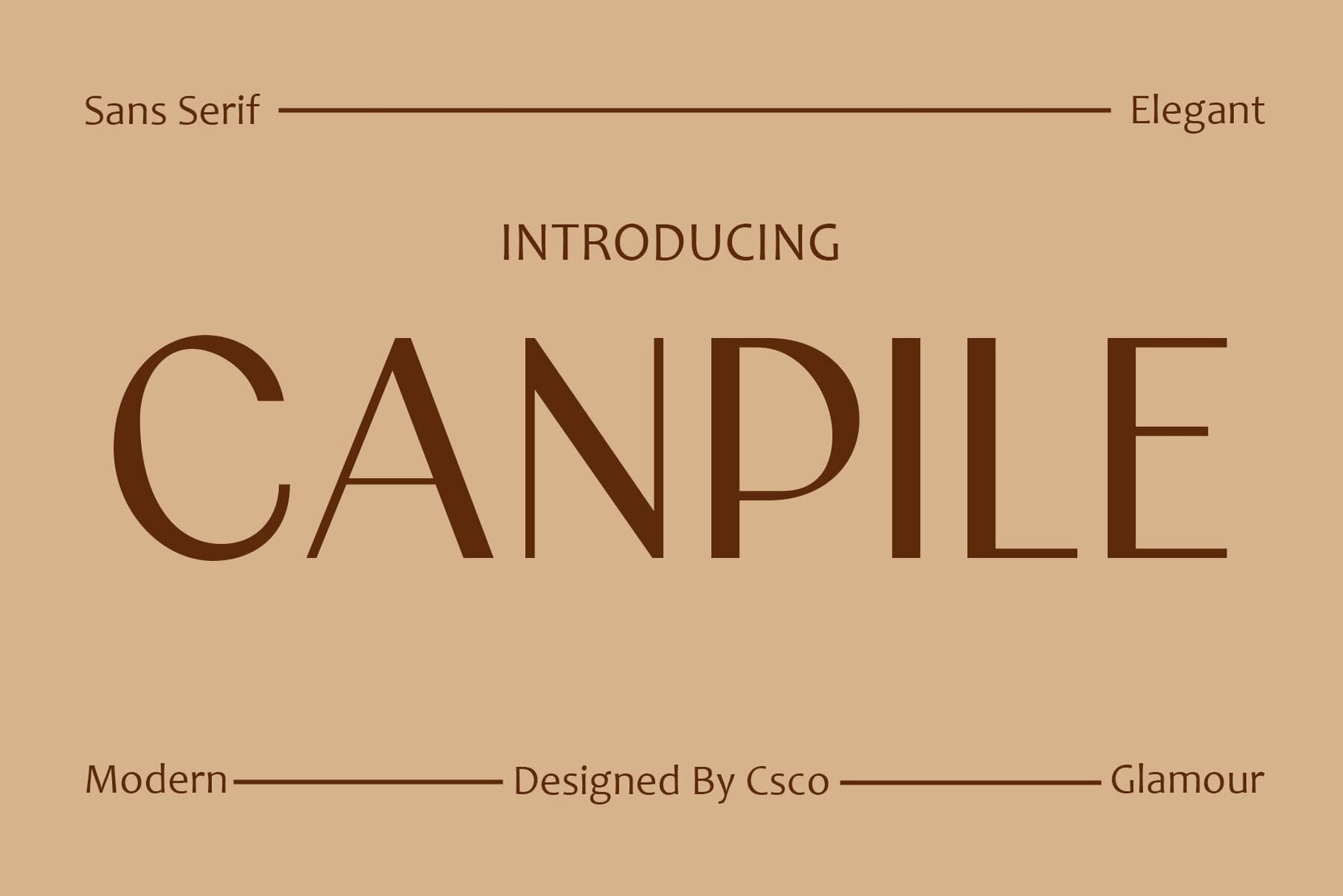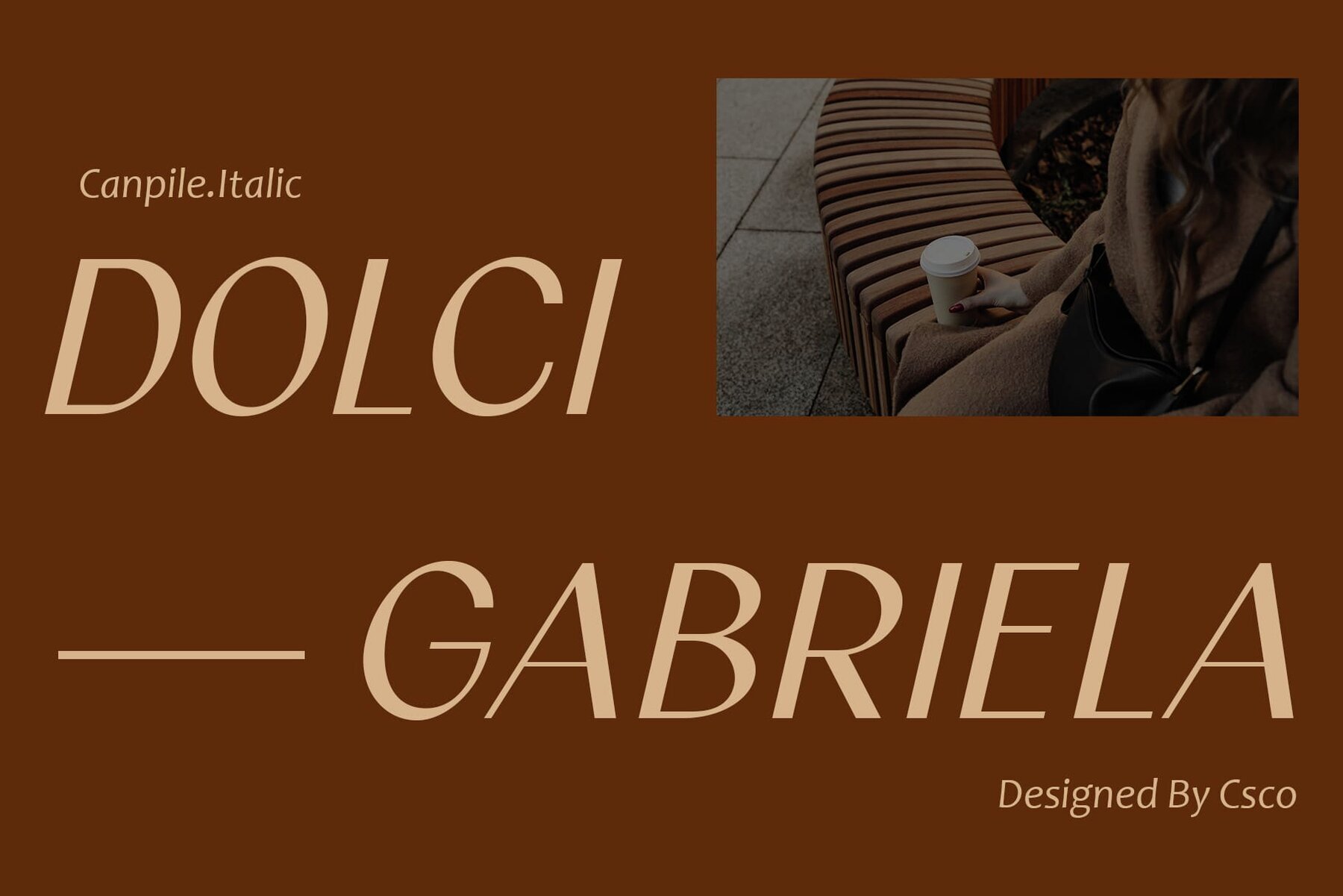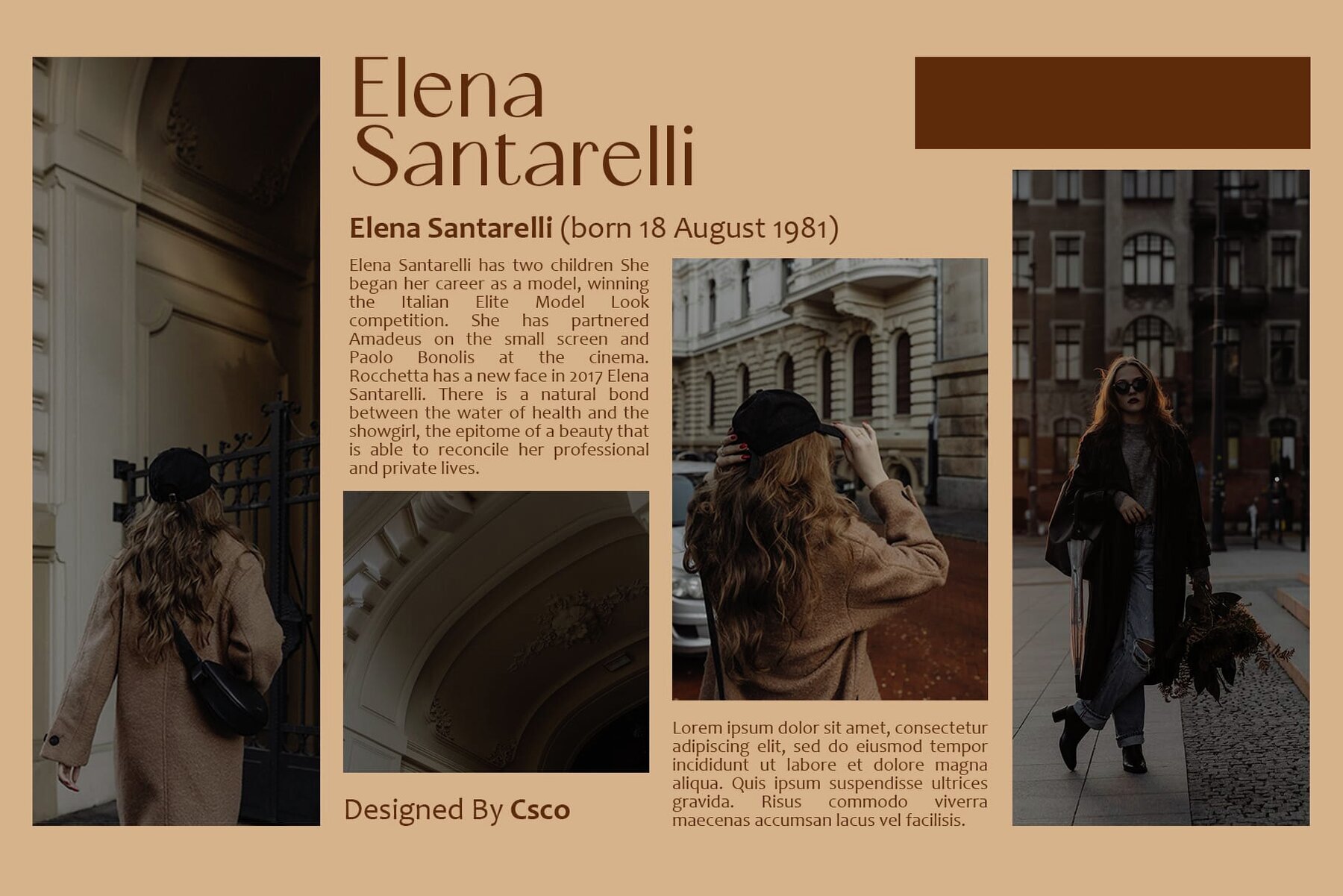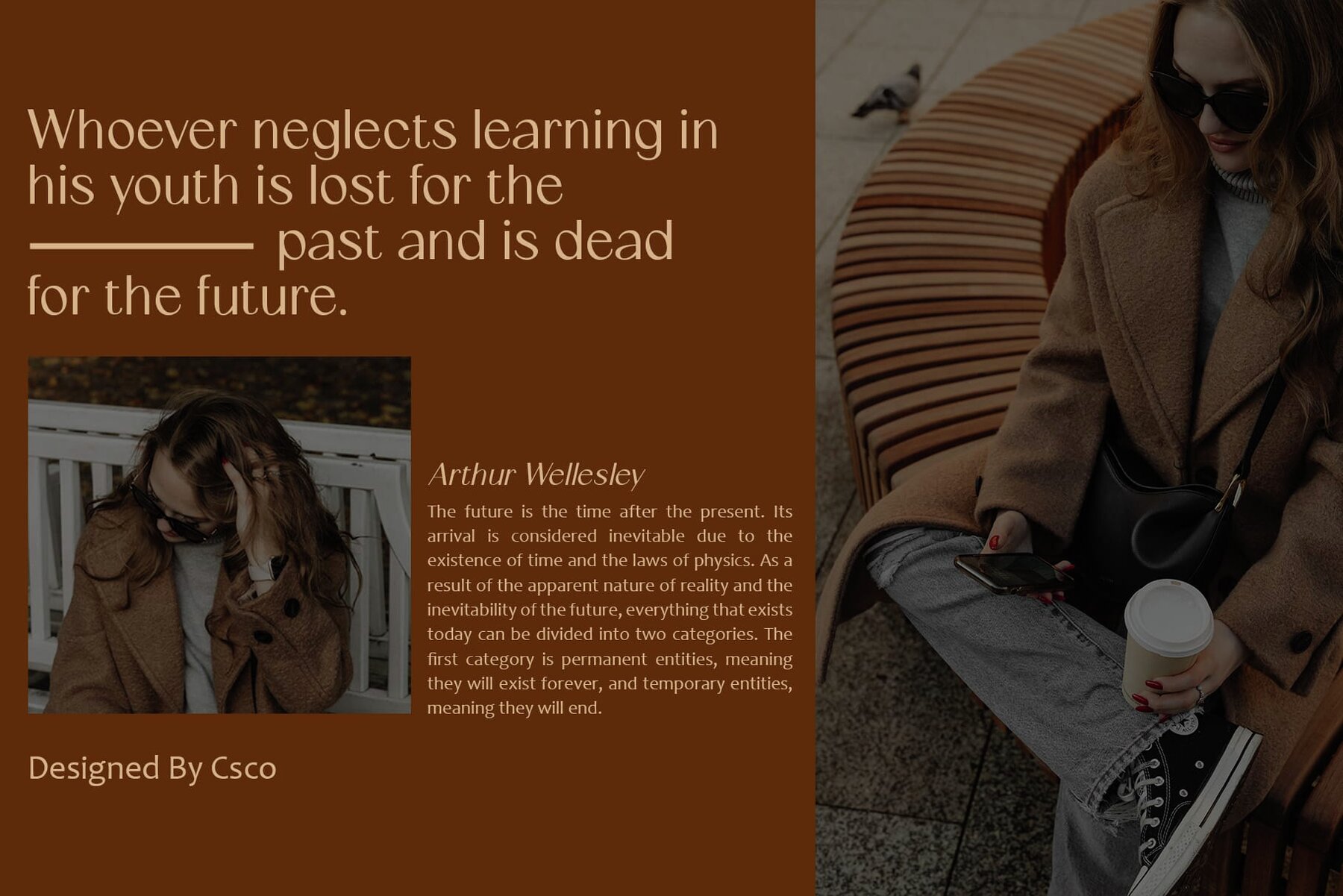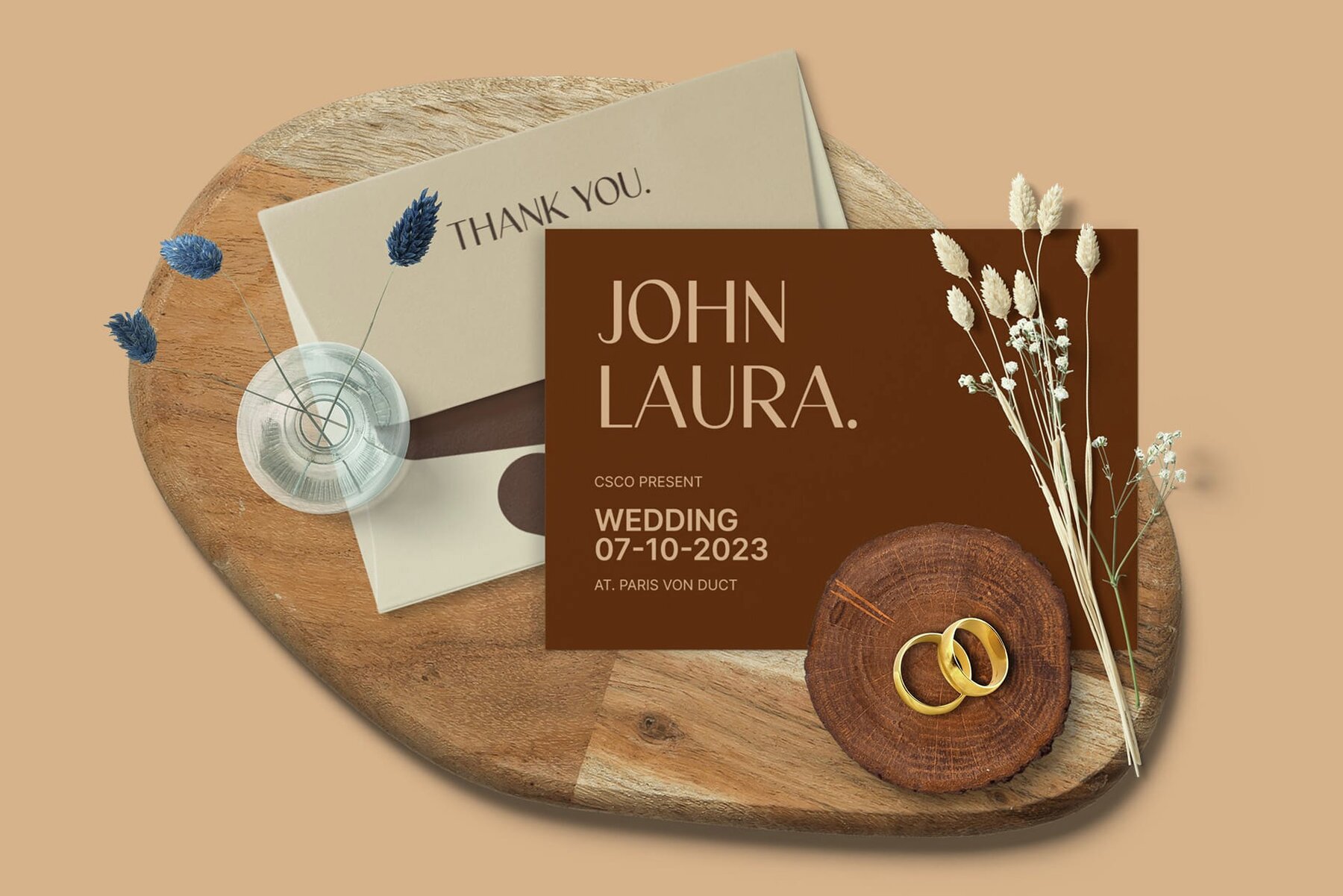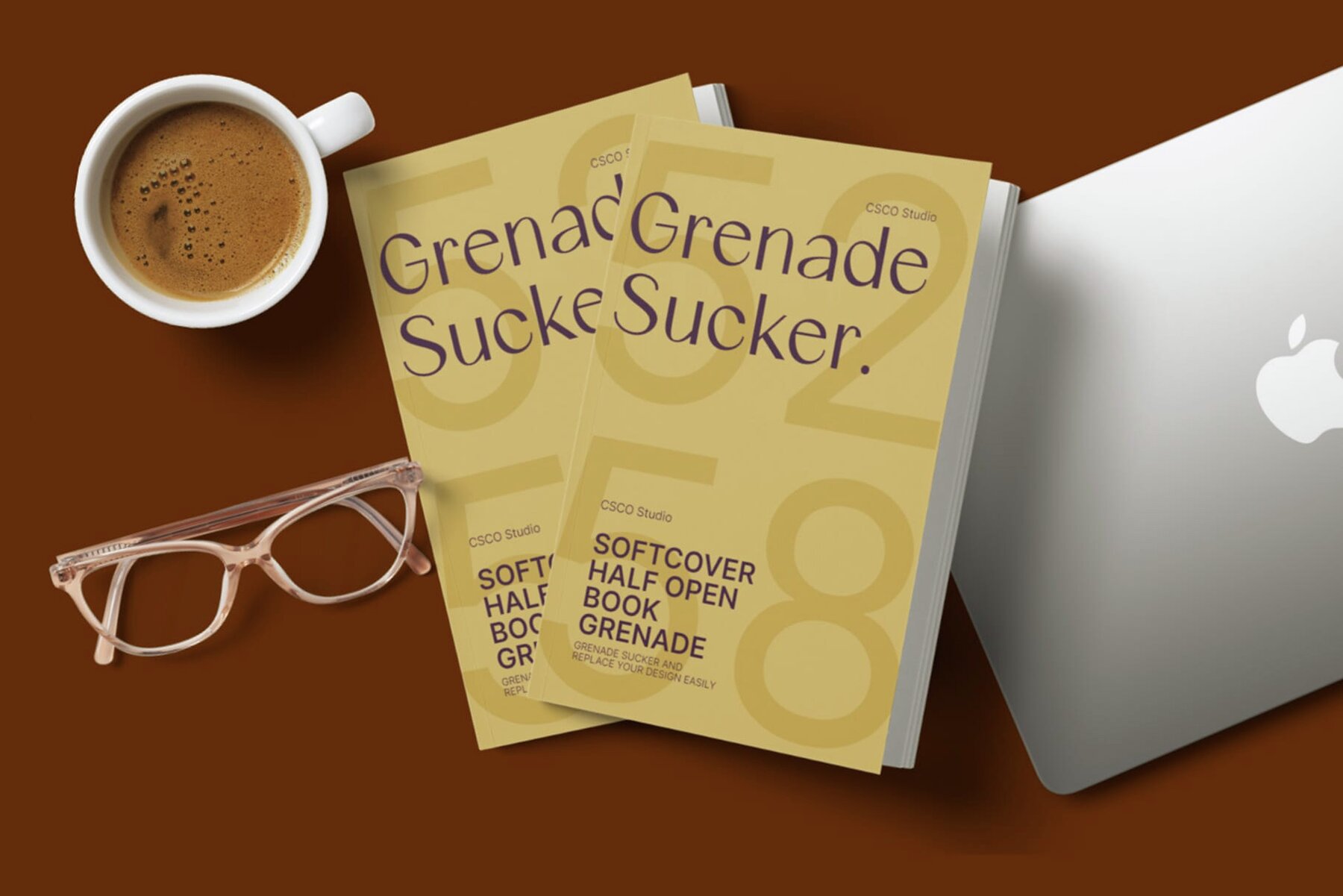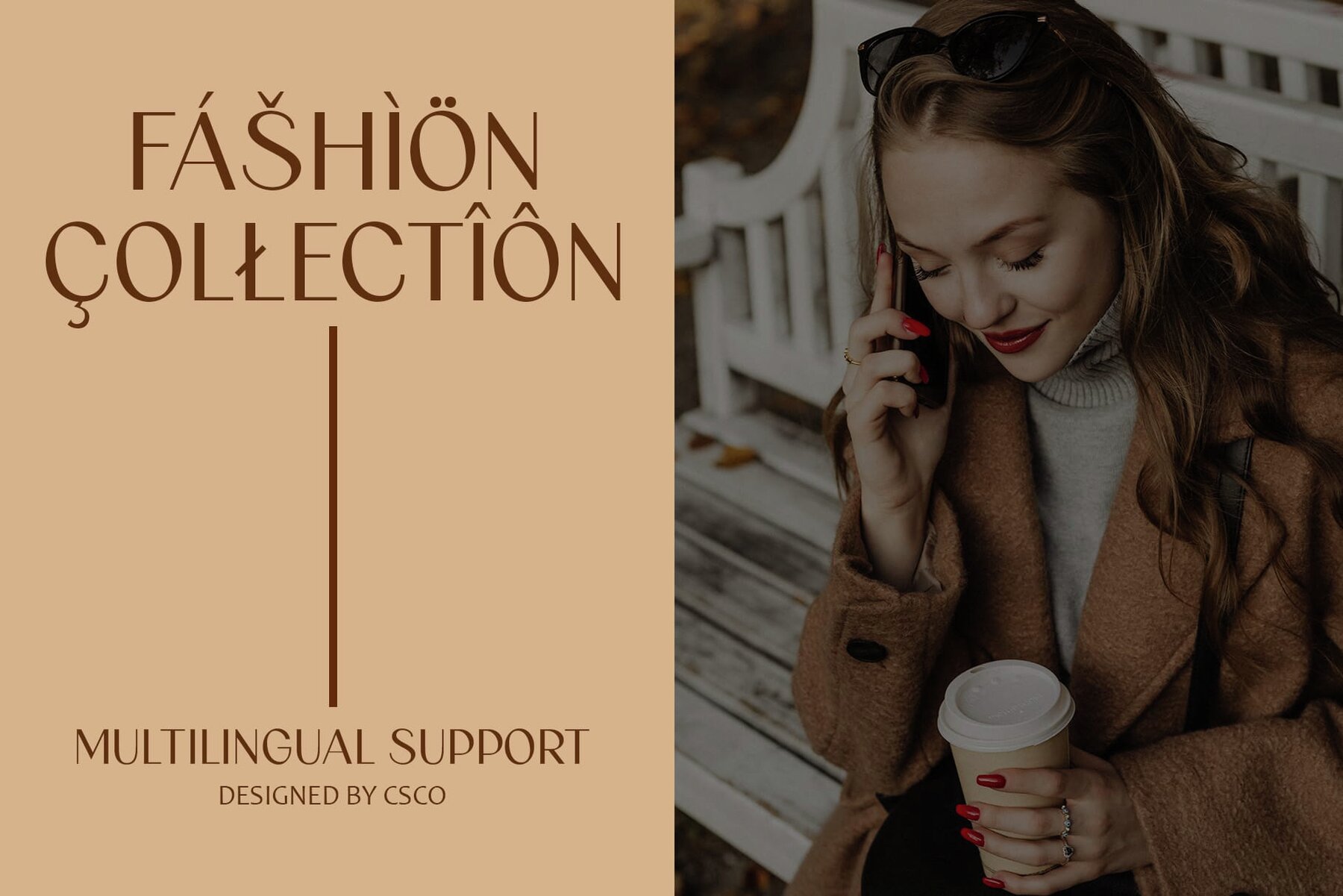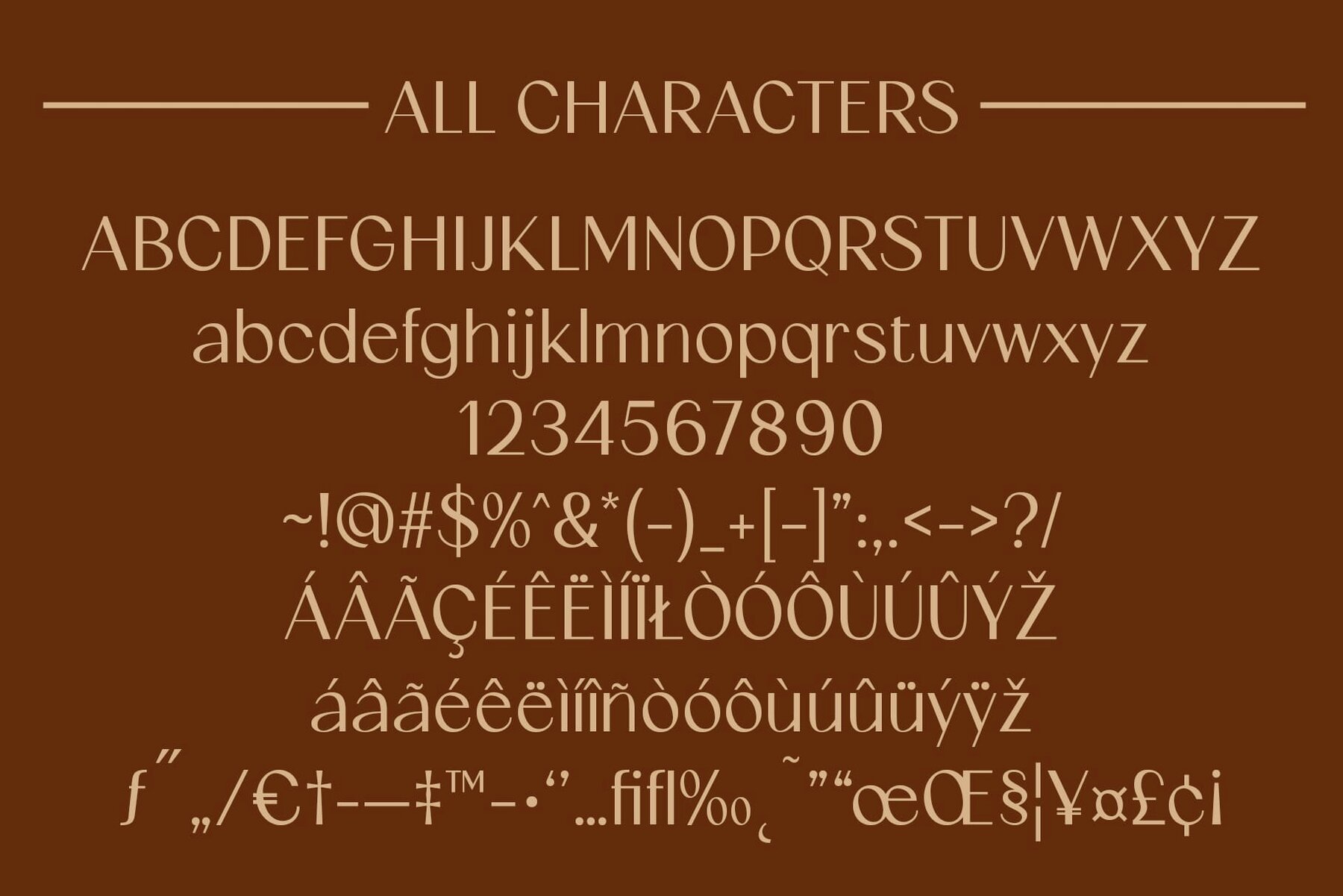
Canpile Font
Canpile is a beacon of modernity, merging sans serif simplicity with style, making it an ideal choice for contemporary editorial design. Canpile combines clean lines and a straightforward approach, establishing itself as a pivotal element in sophisticated design projects. From editorial layouts to a wide range of applications, Canpile proves its adaptability, delivering a stylish impact to any creative endeavor. The embedded modernity in Canpile brings sophistication to your designs, capturing attention and exuding professionalism. Canpile’s sleek and structured design epitomizes editorial excellence, presenting your content with clarity, class, and modern appeal. Canpile is more than just a font; it’s a design companion. Its modern aesthetics, versatility, and editorial prowess transform every project into a masterpiece of contemporary elegance. No specialized software is required to use this typeface. If you have any inquiries or need assistance, please feel free to contact us. We appreciate your support in enhancing your creative projects!Canpile Font: A Modern Marvel of Typography
Stylish Simplicity
Versatility Unleashed
Elevate Your Designs
Editorial Excellence
Conclusion